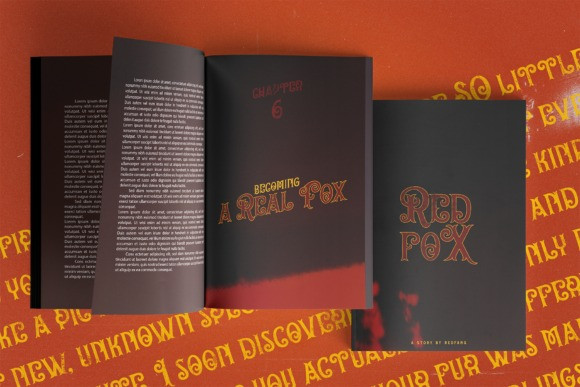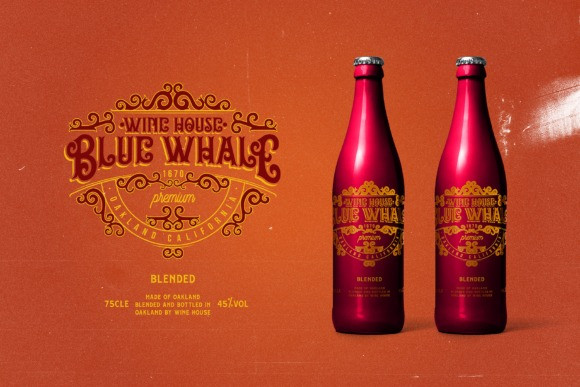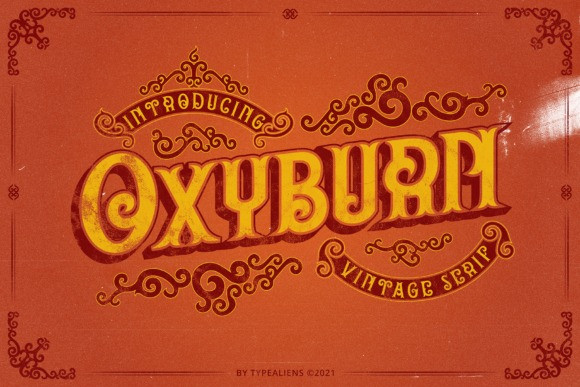
Oxyburn Font
Oxyburn Vintage Font is a cool, bold and vintage styled display font. Whether you’re using it for crafting, digital designing, presentations or greeting cards making, it’s perfect!